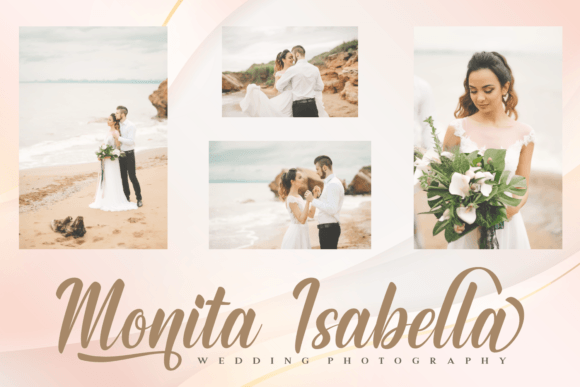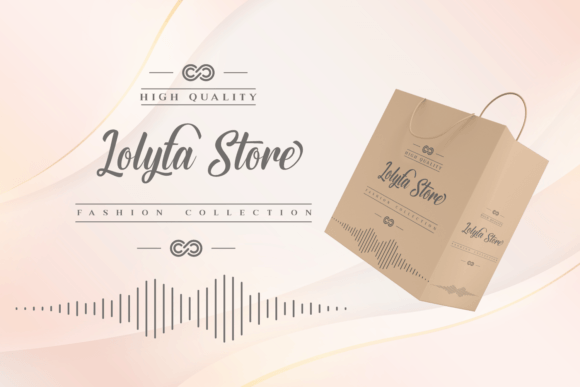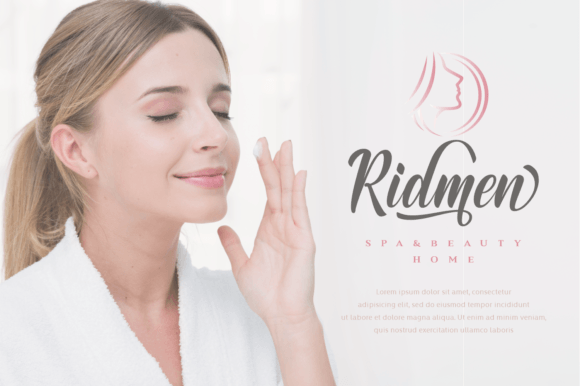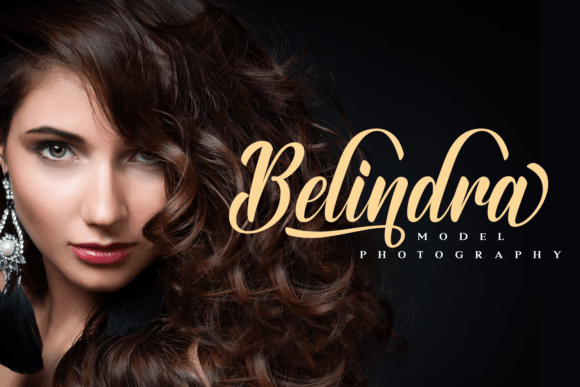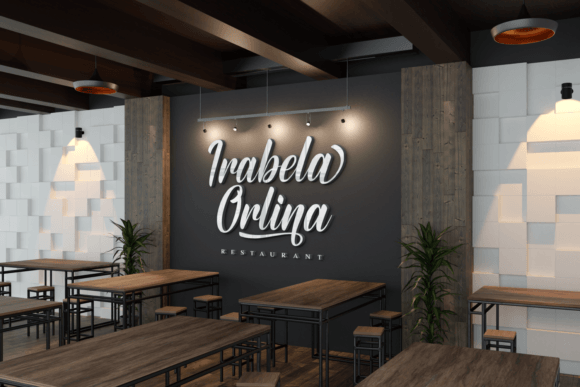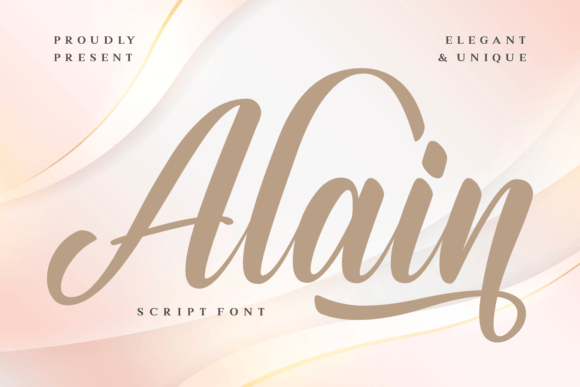
The Quest for the Perfect Script Font: Discovering Alain Font
I still remember the frustration of working on a design project, hours spent searching for the perfect script font to add that elegant touch. My client wanted a logo that exuded sophistication and style, but every font I tried seemed to fall flat. That’s when I stumbled upon Alain Font, a gorgeous and elegant script font that instantly elevated my design game. In this article, I’ll share my love for Alain Font, its features, and how to make the most of it in your designs.
An Honest Review of Alain Font
What I Love About Alain Font ✨
• 💫 Elegant and sophisticated: Alain Font adds a touch of luxury to any design.
• ✅ PUA encoded: Easy access to all glyphs and swashes.
• 🌈 Versatile: Perfect for logos, watermarks, invitations, greeting cards, and more.
• 👍 Highly legible: Despite its script nature, Alain Font remains clear and readable.
While Alain Font is an excellent choice, there are a few minor considerations to keep in mind:
• 🤔 Limited use for body text: As with most script fonts, Alain Font is best suited for headings or titles.
• ⚠️ May require manual kerning: Depending on the design, some letters may need adjusting for optimal spacing.
The Story Behind Alain Font
Alain Font was created with the intention of bringing a touch of elegance and sophistication to the world of typography. Its designer aimed to craft a font that would be both beautiful and versatile, suitable for a wide range of creative projects. Although the exact story behind Alain Font may be shrouded in mystery, its impact on the design community is undeniable.